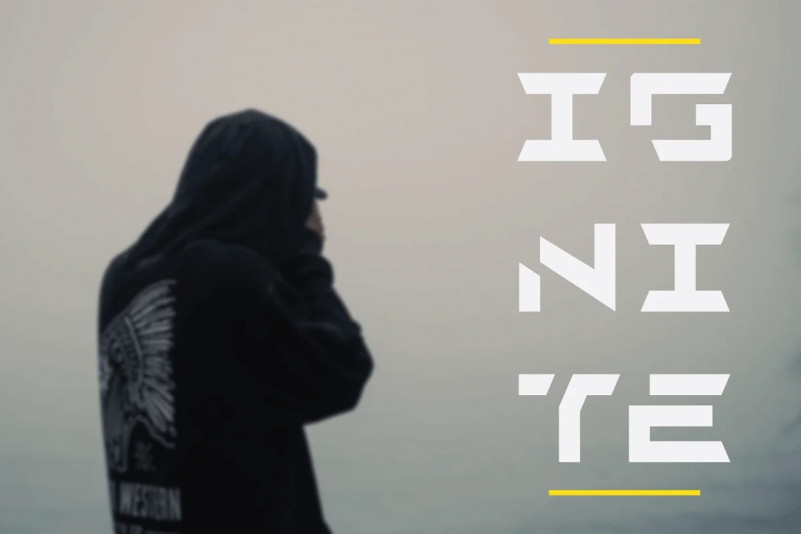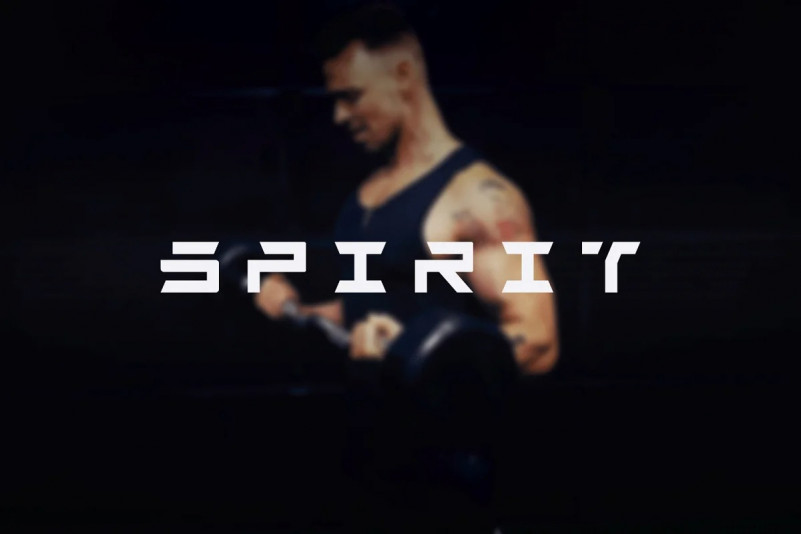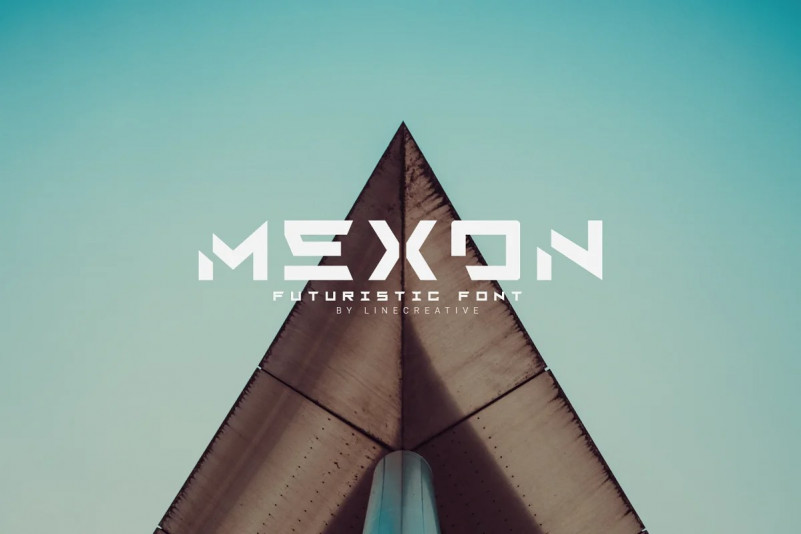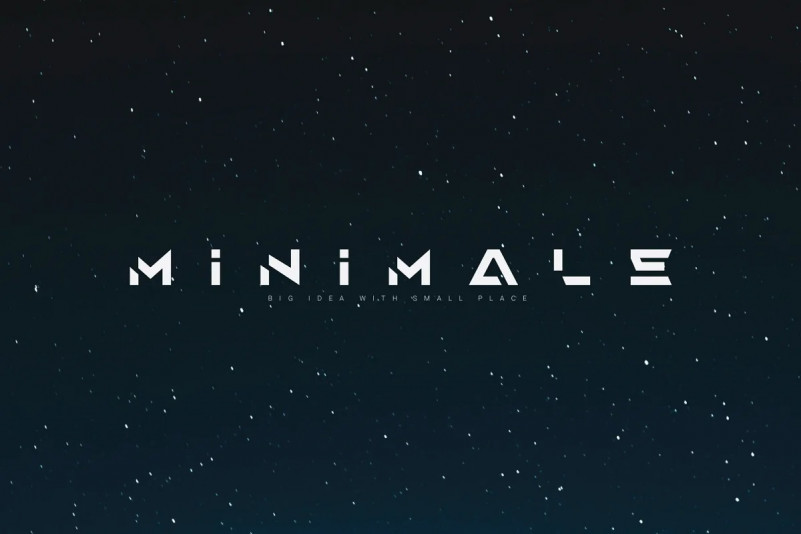
Mexon Display Font
This is a sans based font with unique uppercase that will make your design looks futuristic and modern. It’s designed and shared by Linecreative. This typeface is available in all caps only with stylistic alternates feature plus supports multilingual languages. This font is appropriate for your branding, logo design, shirts, etc.